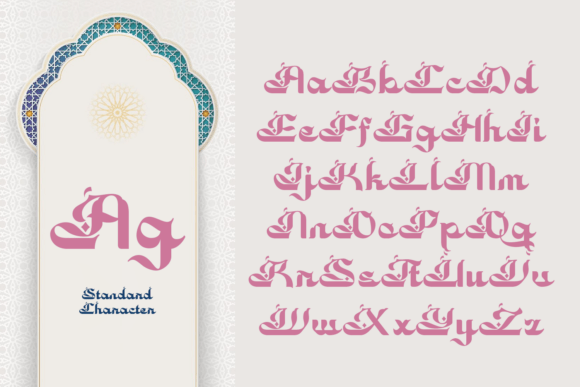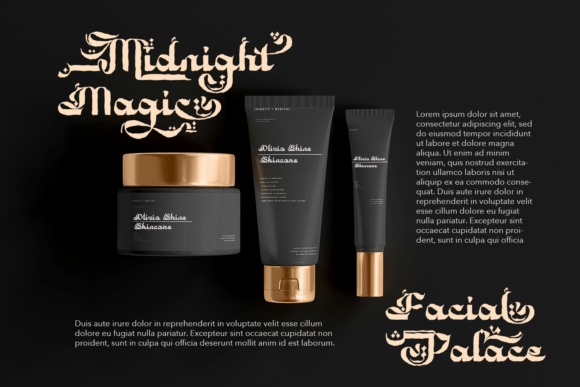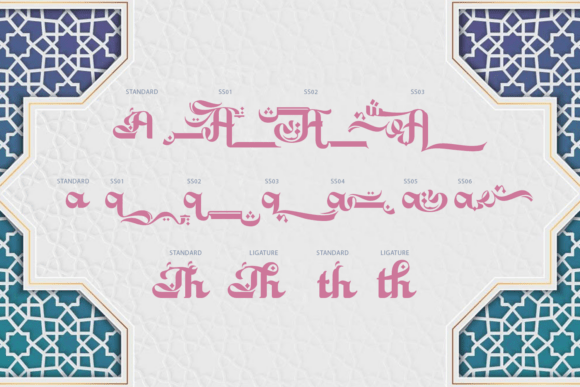
Introduction to Khairullah Font
Have you ever found yourself staring at a blank canvas, desperately searching for the perfect font to bring your creative project to life? The search for that elusive, high-quality font can be a daunting task, especially when you’re aiming for a unique and exotic feel. But what if I told you that your search is over? Welcome to the world of Khairullah Font, a stunning typographic style that combines elegant Arabic calligraphy with modern flair.
Designed to transport your audience to a world of traditional beauty and artistic sophistication, Khairullah Font is a game-changer for designers looking to elevate their work. With its smooth curves, contrasting strokes, and ornamental details, this font is perfect for creating a dynamic impression that’s both refined and eye-catching. Whether you’re working on a logo, poster title, or product branding, Khairullah Font is the ideal design resource to add a touch of elegance and sophistication to your work.
Key Features of Khairullah Font
- High-quality typography: Khairullah Font offers a unique and elegant design, making it a valuable resource for creative projects.
- Unique character set: Khairullah Font features a comprehensive character set, including a wide range of languages and special characters.
- Perfect for creative projects: This font is ideal for designers working on branding, advertising, and publishing projects, adding a touch of elegance and sophistication to their work.
Honest Review: Khairullah Font
As a designer, I’m always on the lookout for high-quality design resources that can elevate my creative projects. Recently, I stumbled upon the Khairullah Font, and I must say it’s been a great addition to my collection.
- ✨ The font’s elegant and modern design makes it perfect for a wide range of creative projects, from logos to brochures.
However, I do have a few minor issues:
- ⚠️ The font may not be suitable for small text sizes, as it can become difficult to read.
- ⚠️ The font’s weight range is limited, which may not be ideal for projects that require a lot of font variations.
Overall, I’m impressed with the Khairullah Font. It’s a solid design resource that can add a touch of sophistication to any creative project. While it may have some limitations, it’s definitely worth considering for your next design project.
The Khairullah Font is a high-quality design resource ideal for creative projects. It offers a unique and stylish aesthetic, making it perfect for various applications.